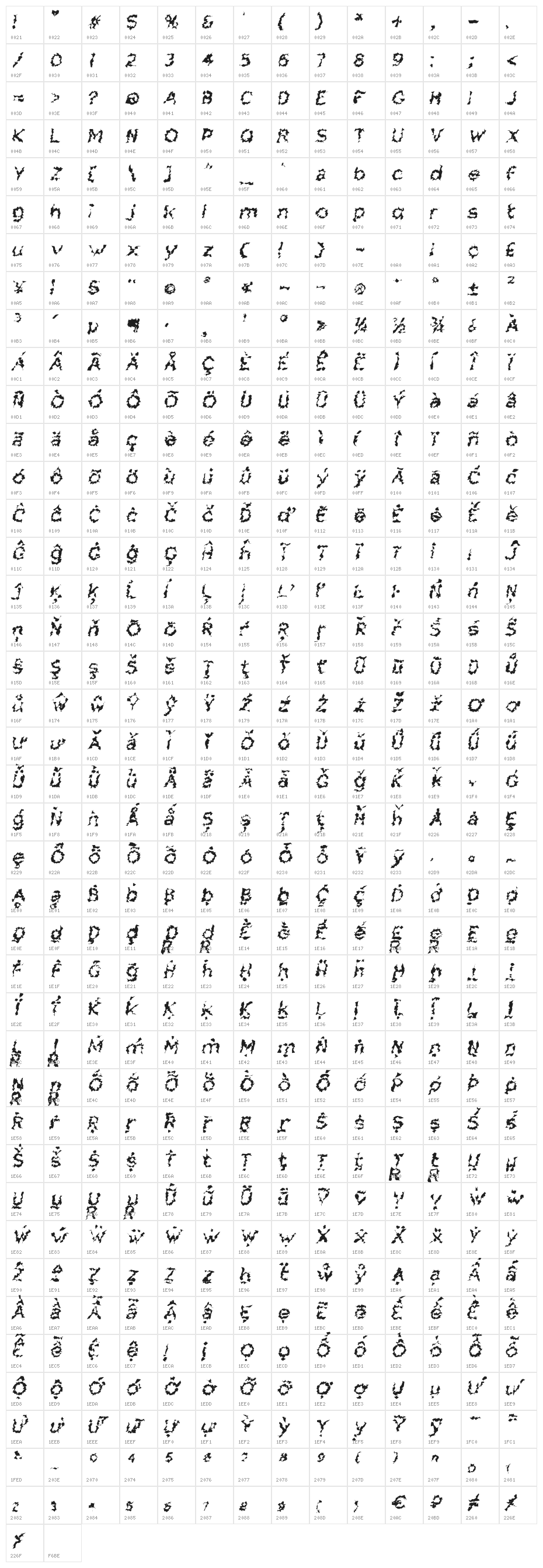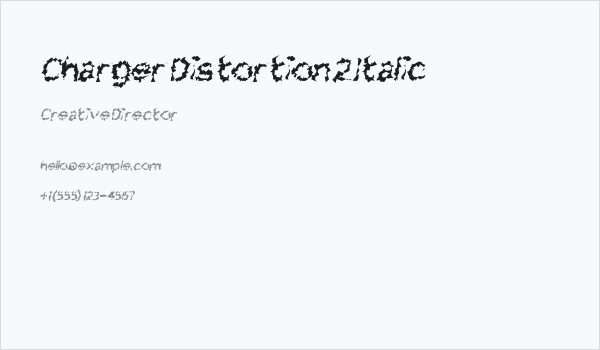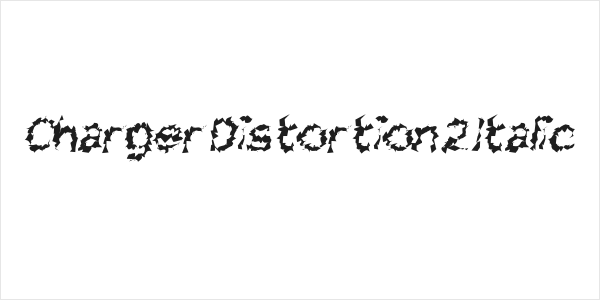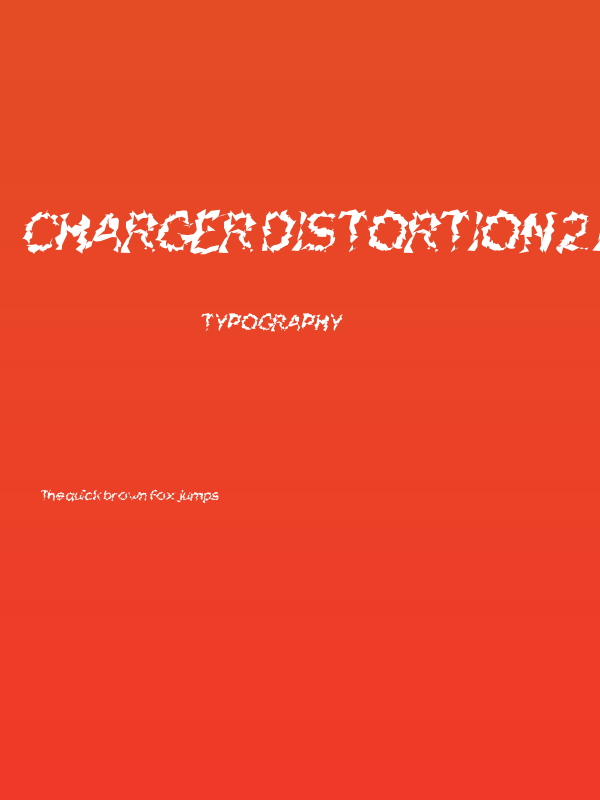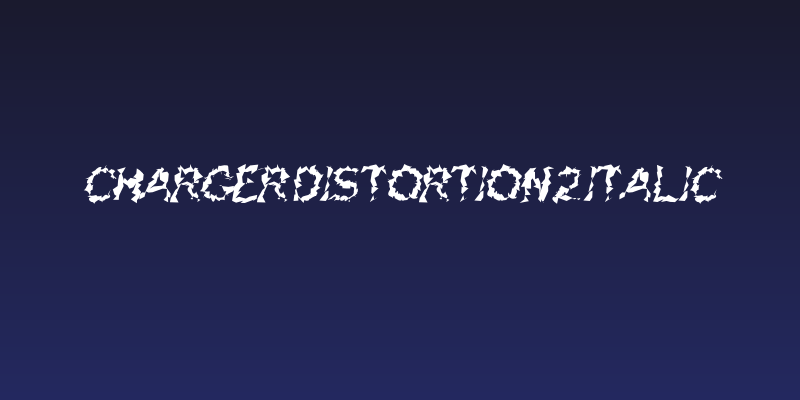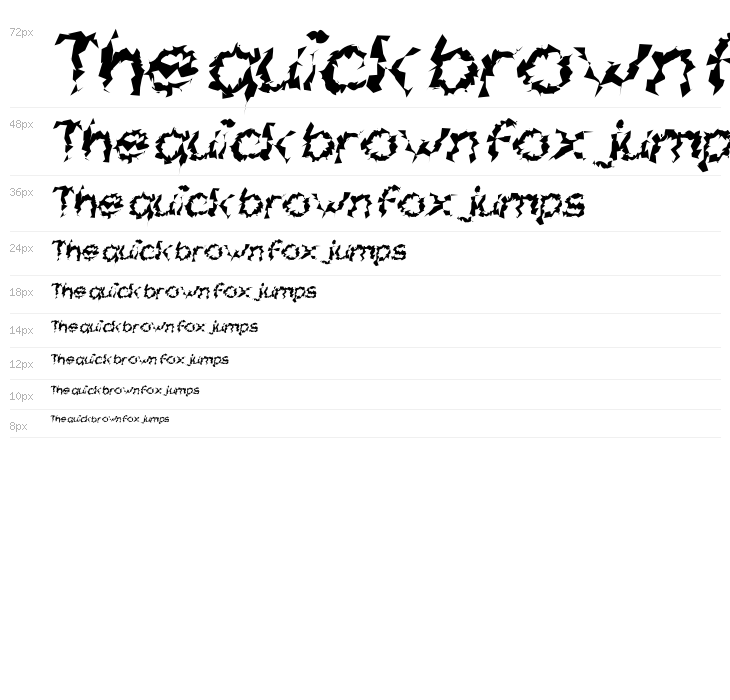
Charger Distortion 2 Italic Font
Charger Distortion 2 Italic Description
This font features a highly distorted and jagged design, reminiscent of shattered glass or torn paper. The characters are bold and angular, with sharp edges and irregular shapes that create a chaotic yet intriguing visual effect. The uppercase and lowercase letters maintain a consistent level of distortion, giving the font a cohesive appearance despite its unconventional style. Numbers and special characters follow the same design principles, ensuring uniformity across all glyphs. The overall aesthetic is aggressive and dynamic, making it suitable for projects that require a strong visual impact.
| Proposed Projects | Ideal for album covers, poster designs, or any project requiring a bold, edgy look. |